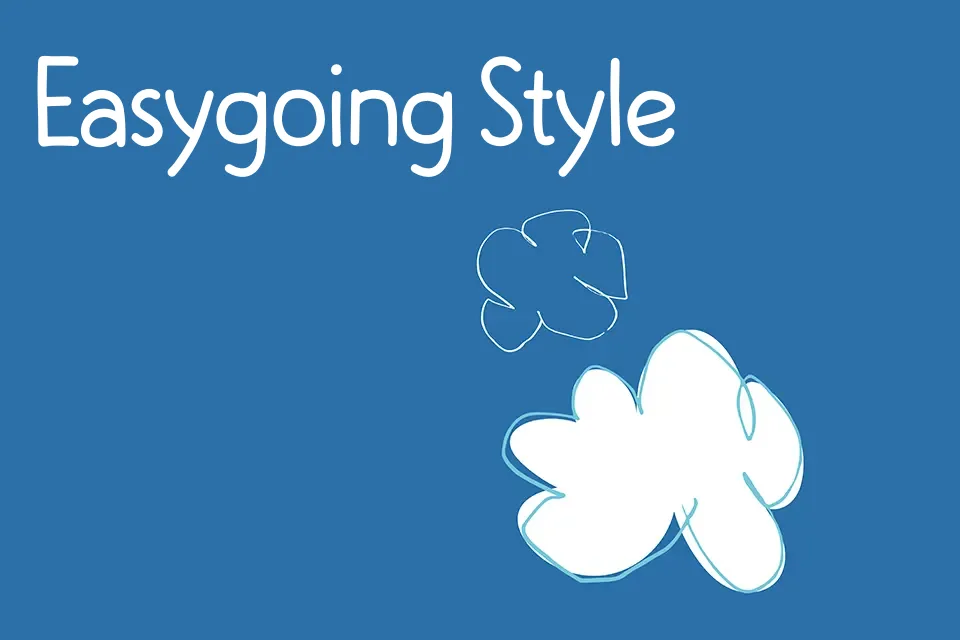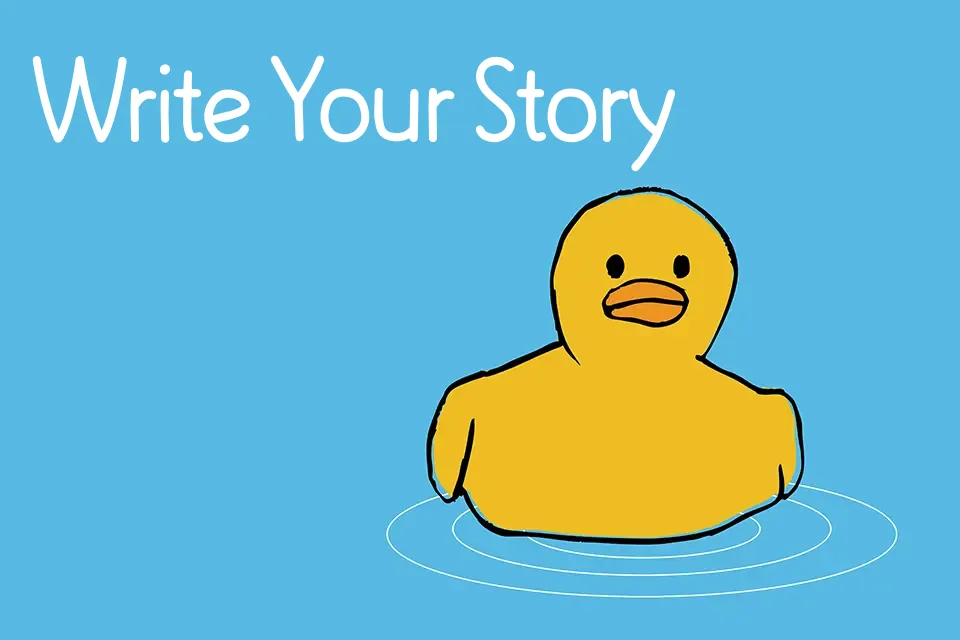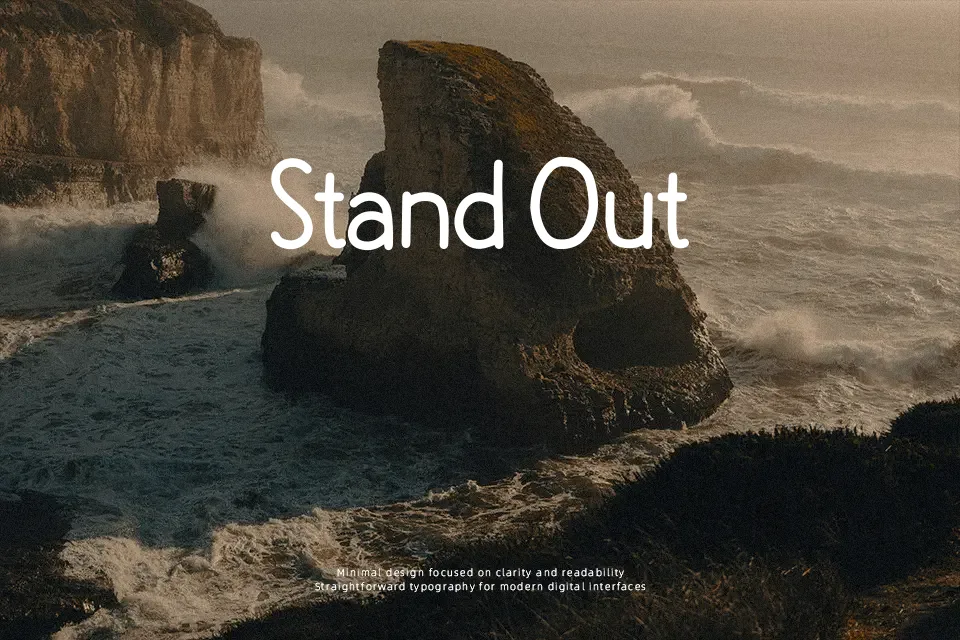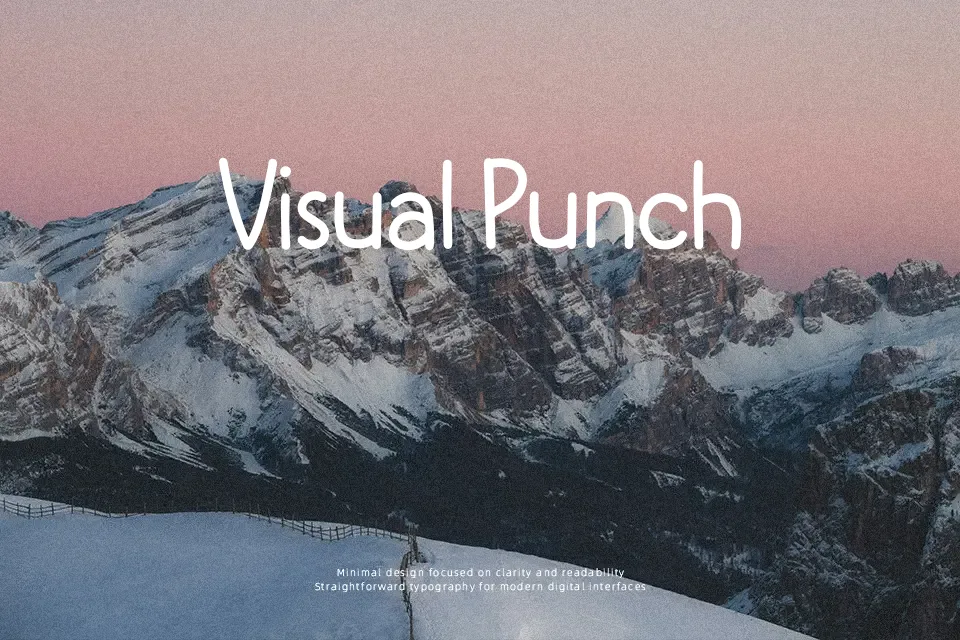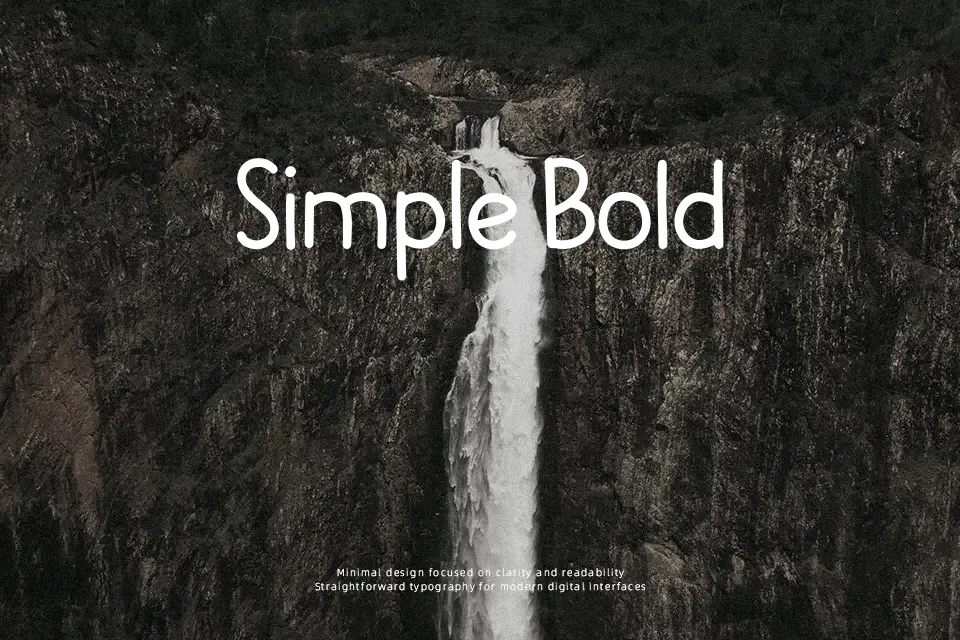
Stickey Font
Stickey Font presents an informal display structure defined by organic stroke curves, softened outer corners, and minimal stroke contrast. Consistent line thickness gives each glyph an approachable hand-rendered quality, while relaxed character spacing keeps titles legible against vibrant graphic backgrounds. Proportions vary slightly between individual letters, creating a bouncy baseline rhythm that works exceptionally well on toy branding, apparel prints, and casual greeting cards. The generous counter spaces help maintain strong character distinction at large display scales. However, the loose alignment and eccentric details reduce reading comfort across dense multi-line paragraphs, making the typeface less suitable for editorial body text.
Best For: children’s book covers, casual food packaging, toy branding, event posters
Not Ideal For: editorial body text, corporate annual reports, mobile app interface labels, legal documentation
Perfect for advertising, headline, and kids, with a creative and comic style.